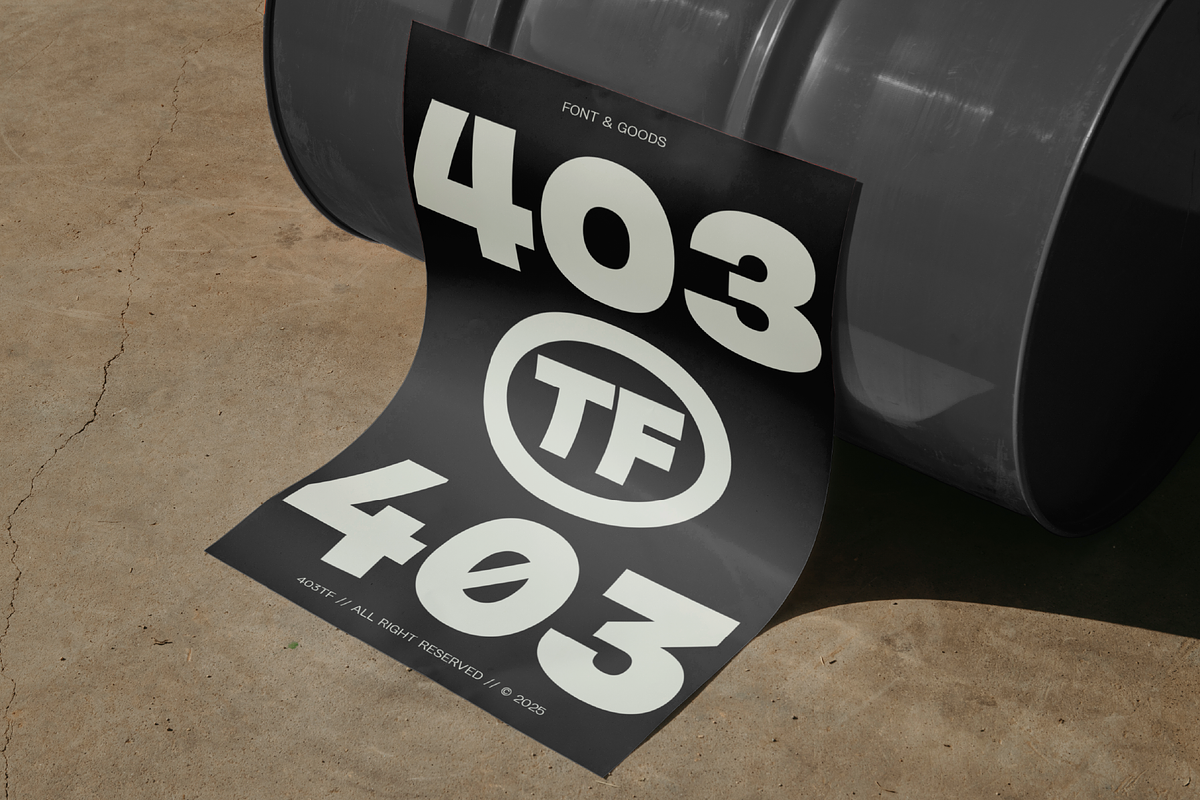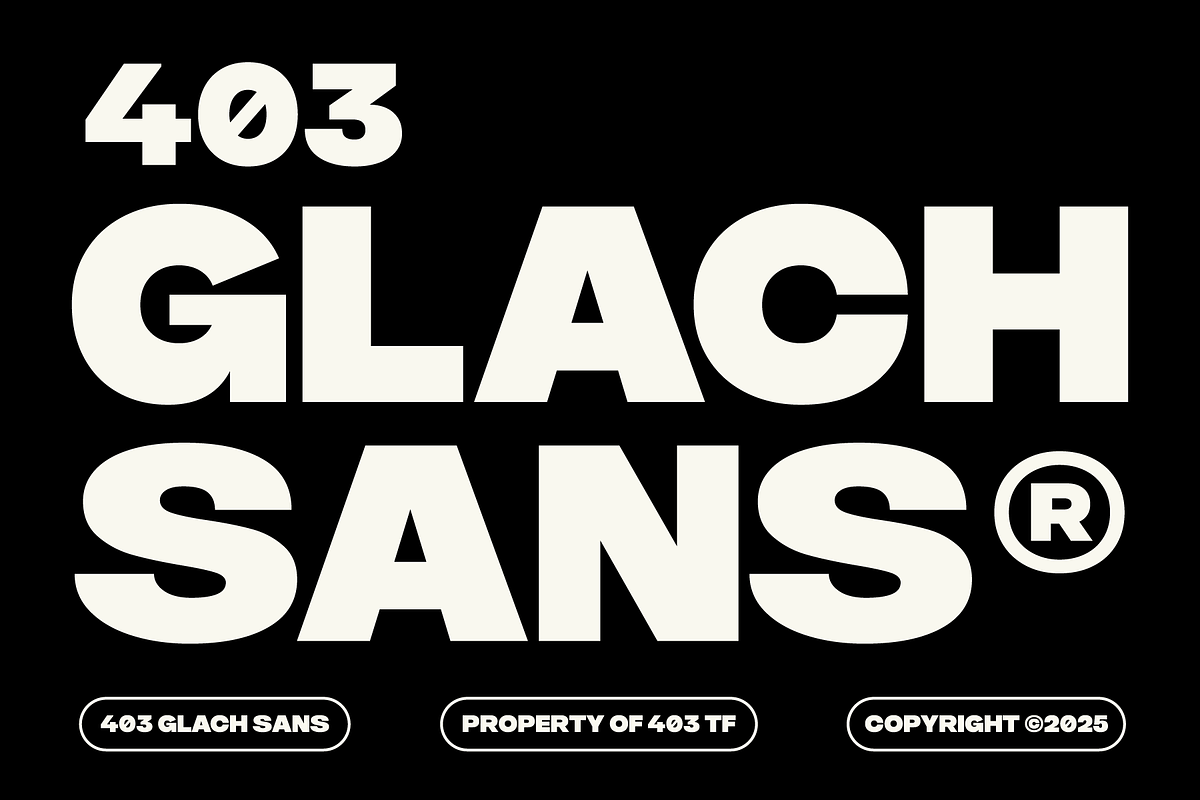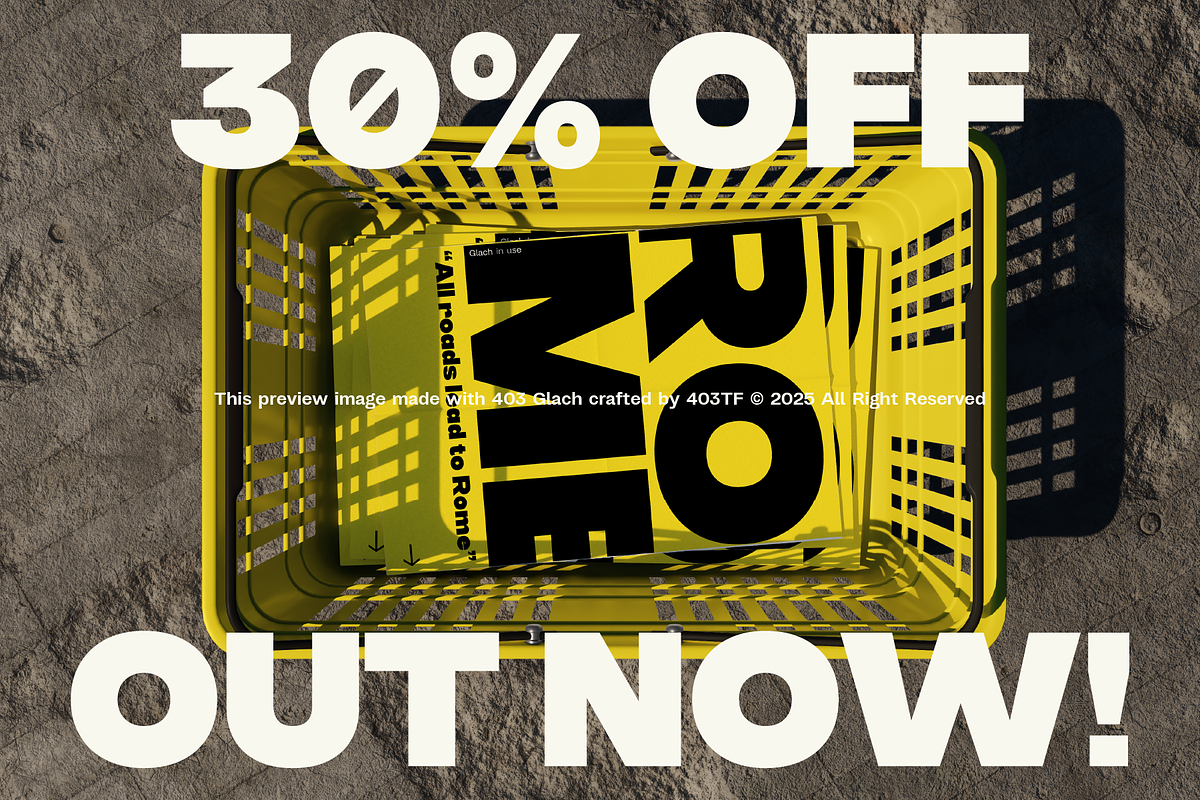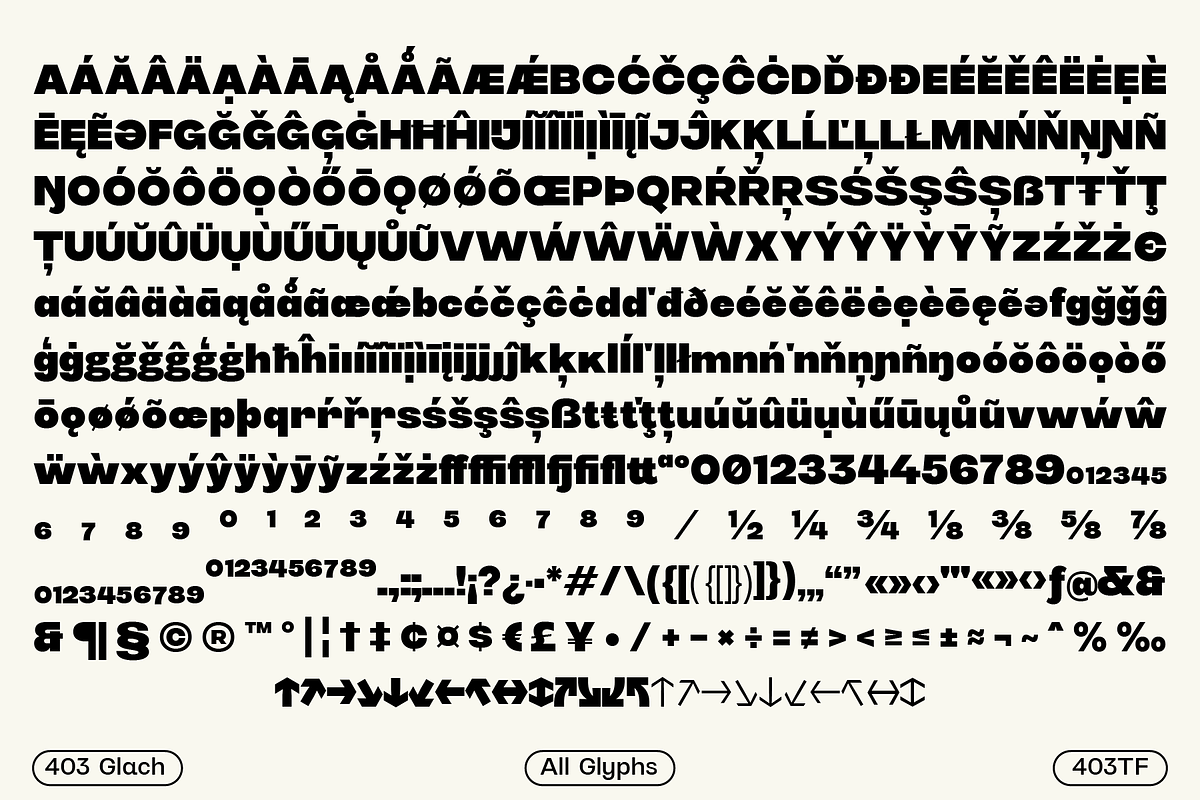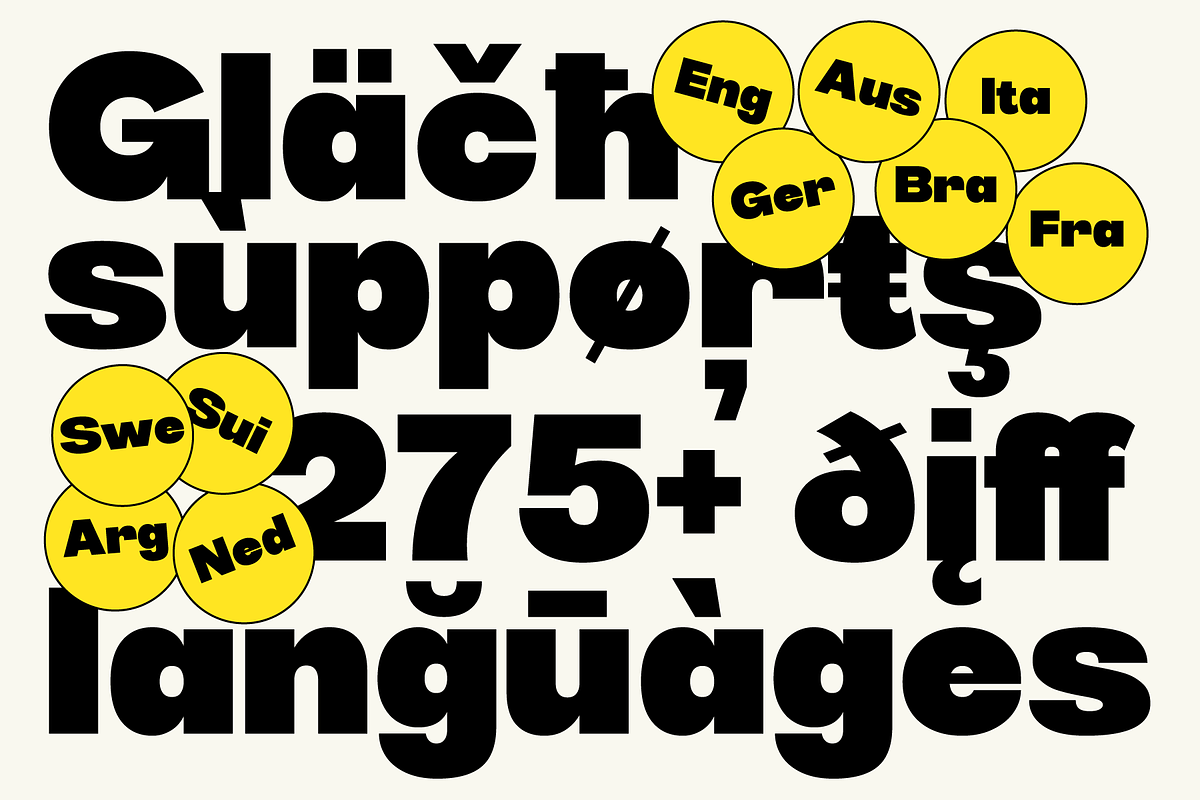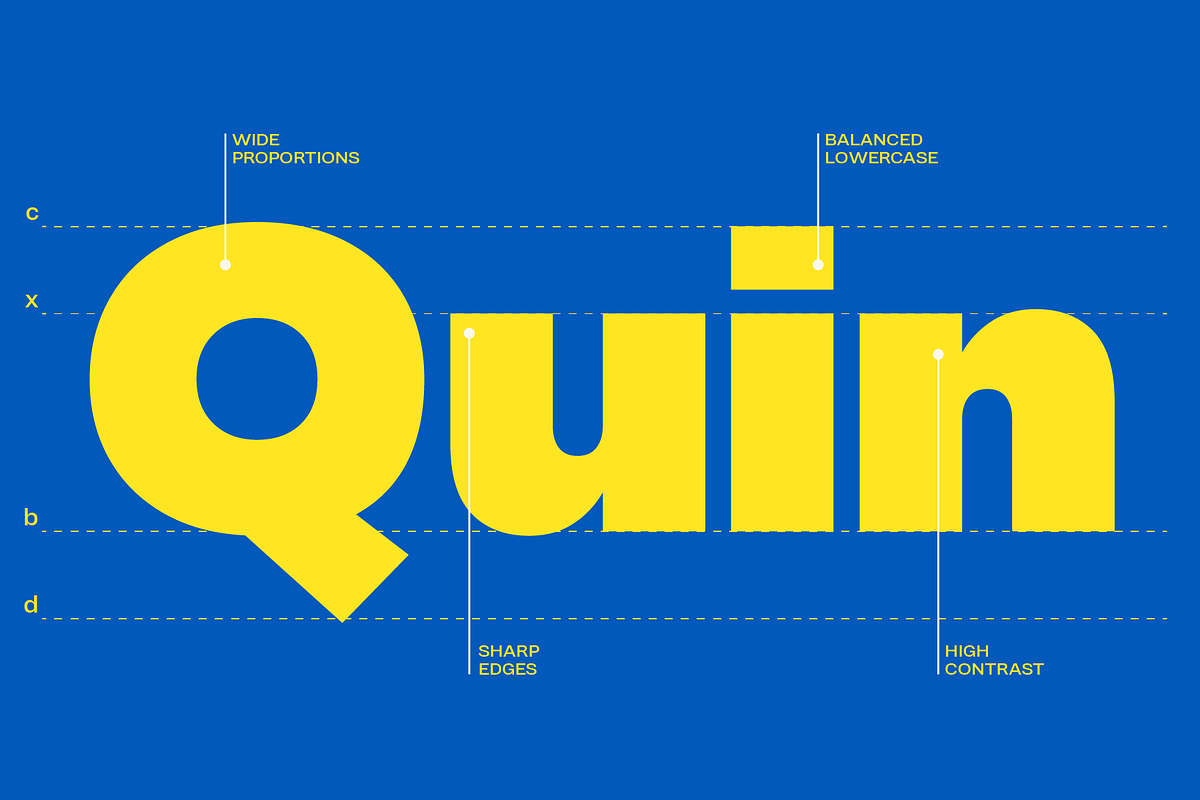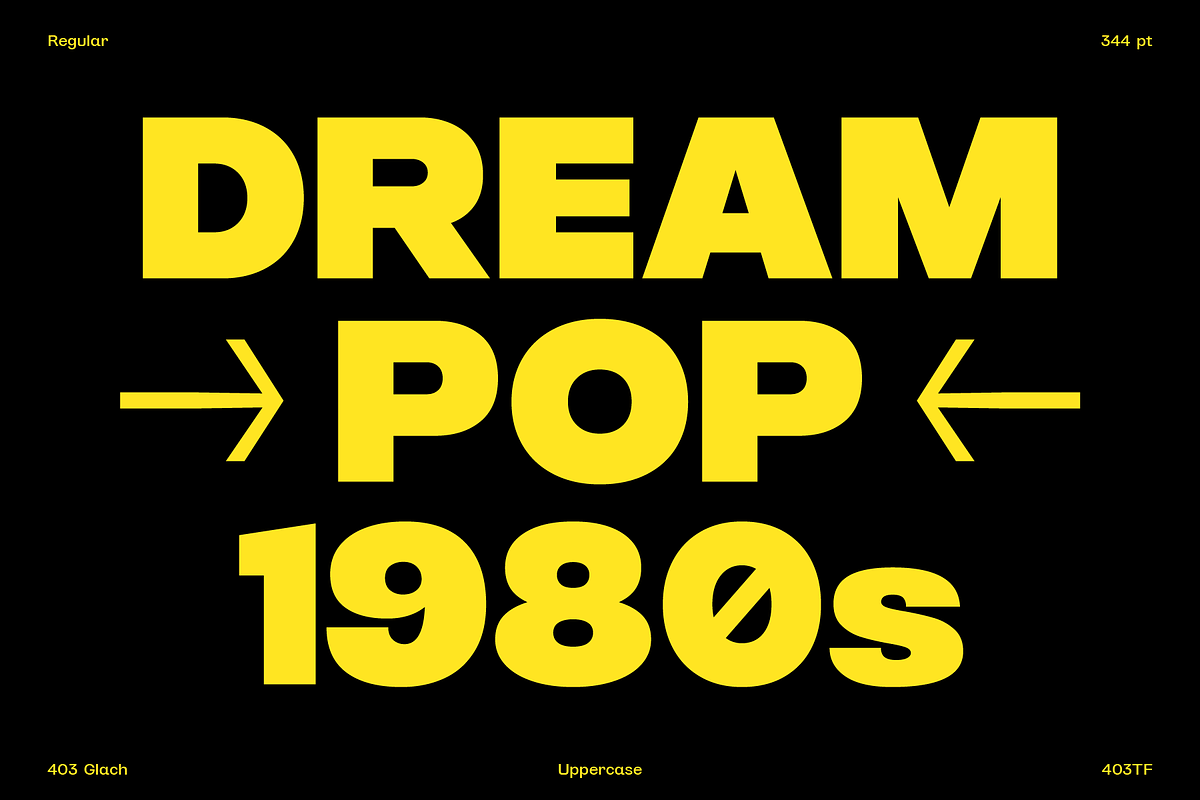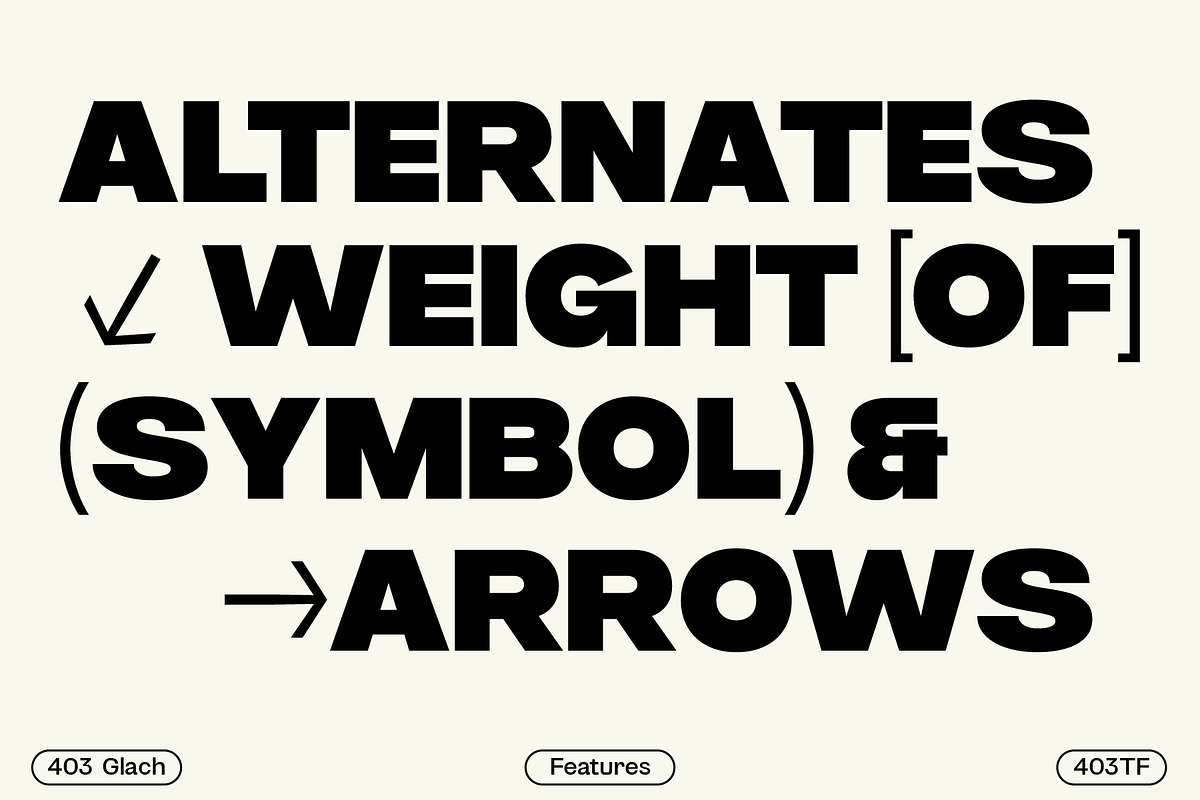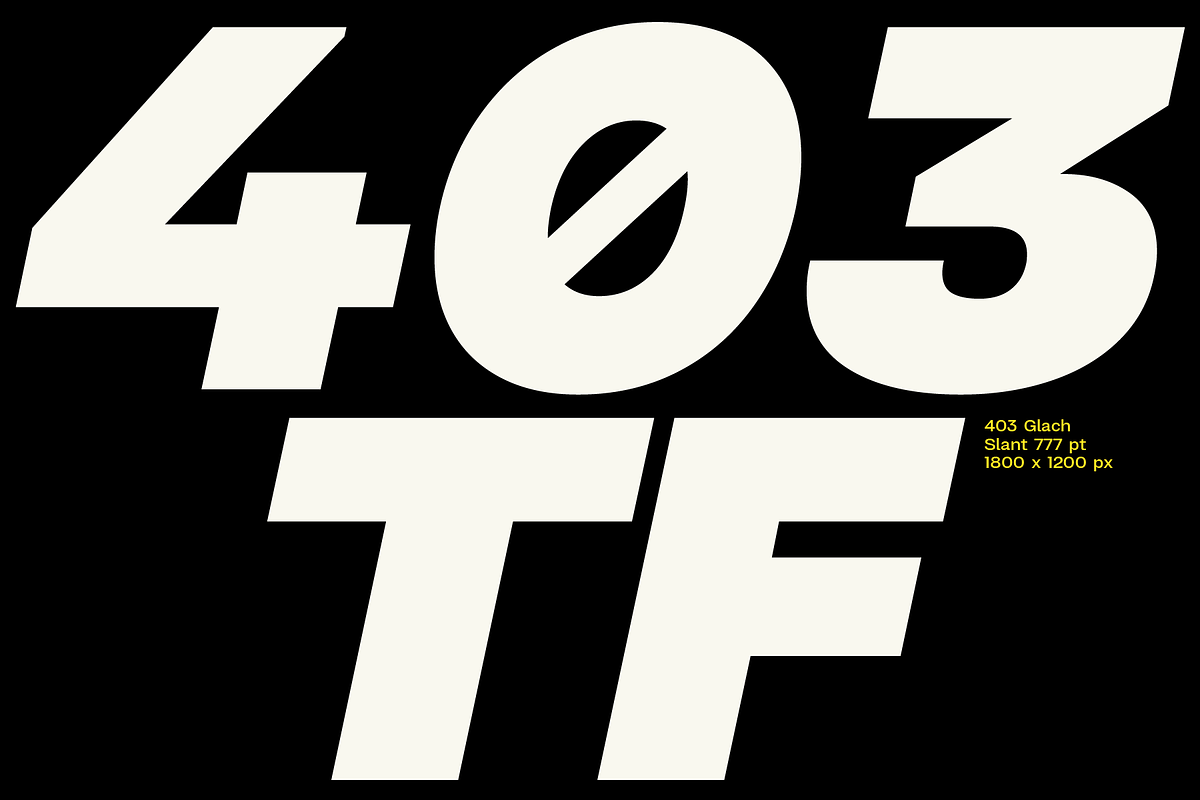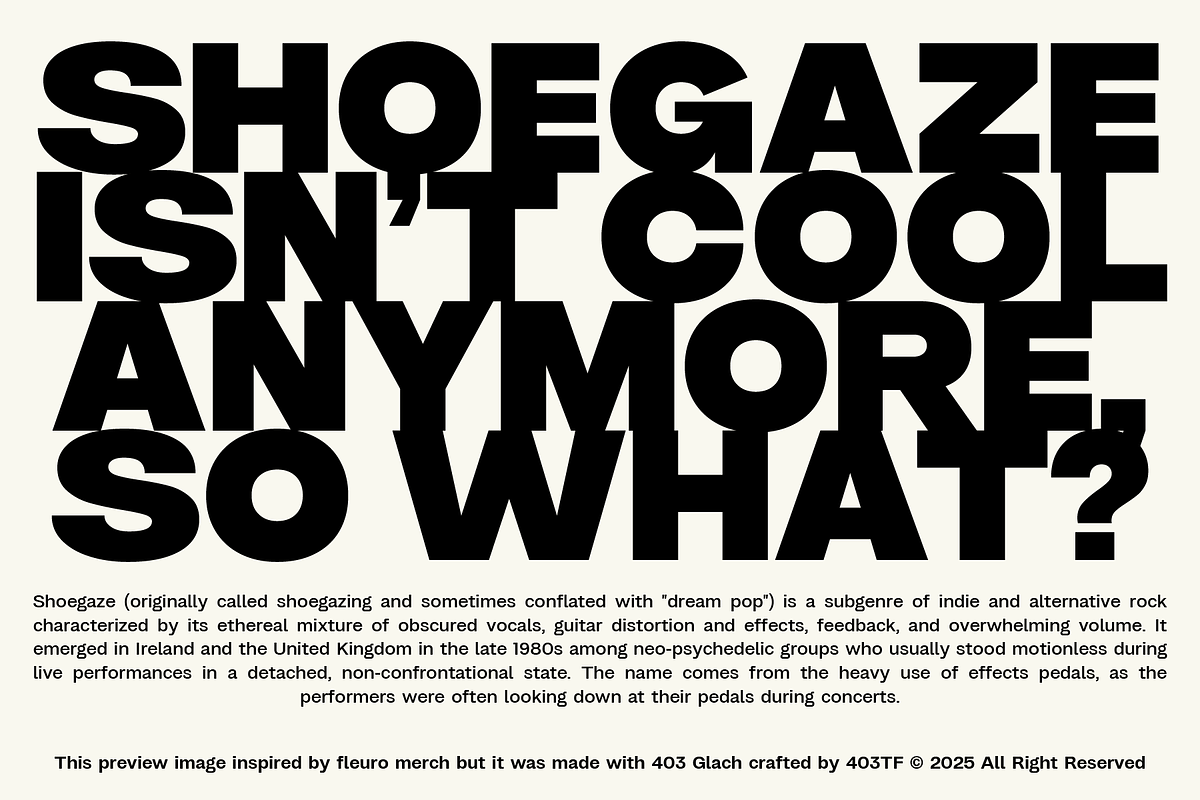
403 Glach Sans
403 Glach is a bold, self-assured sans-serif font with a contemporary, geometric shape that is intended to create a powerful visual impression. This typeface, which comes in two adaptable styles—Regular and Slant—is ideal for a variety of design purposes, such as digital interfaces, branding, editorial design, and posters. For projects that require a sense of motion or urgency, the Slant style adds a dynamic, forward-moving energy, while the Regular style provides a clean and sturdy appearance. With its large glyph set that supports numerous languages and special characters, 403 Glach ensures adaptability to a wide range of design requirements. It is a dependable option for both display and text applications because of its crisp edges, well-balanced proportions, and excellent legibility. With expert accuracy, 403 Glach creates a strong typographic presence whether you're creating striking headlines or striking visual identities.